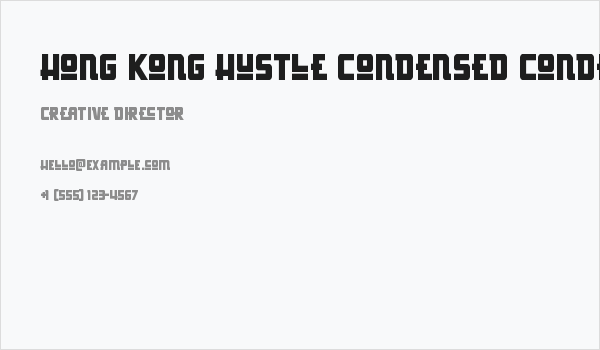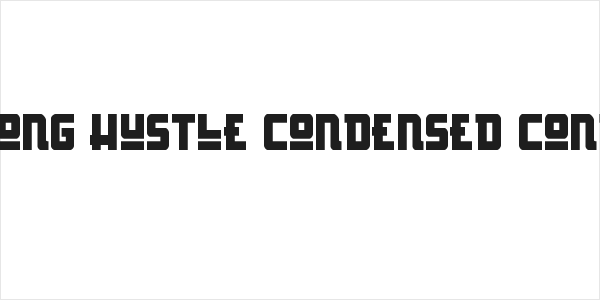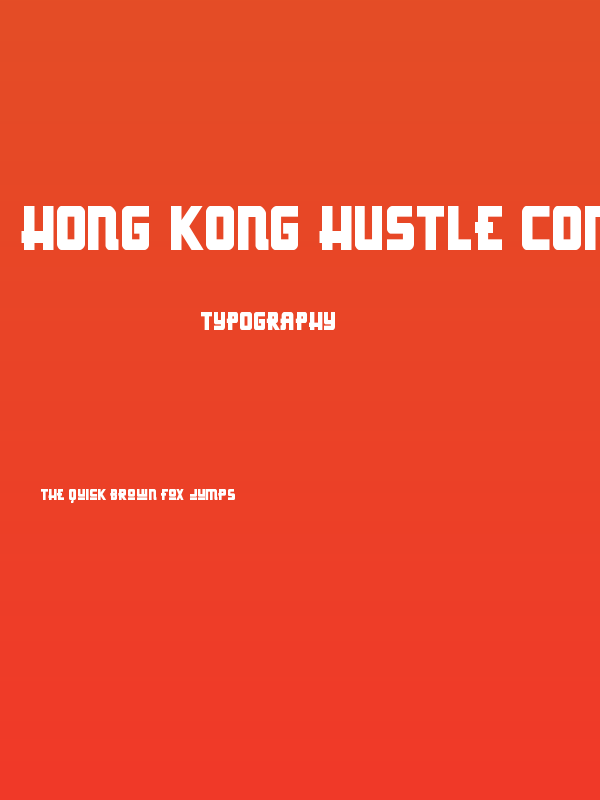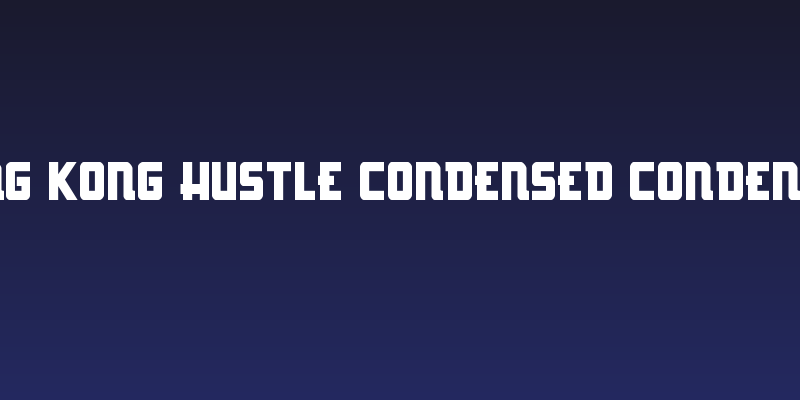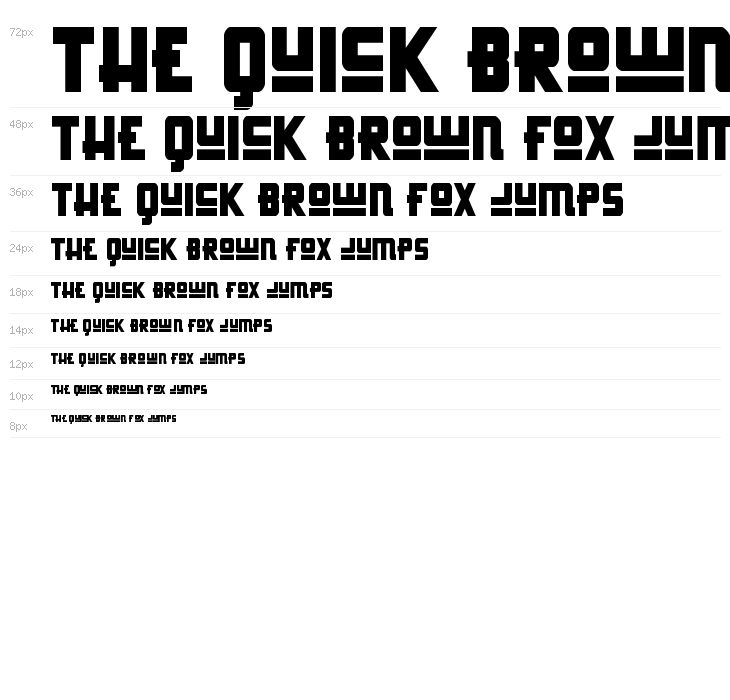
Hong Kong Hustle Condensed Font
Hong Kong Hustle Condensed Description
This font features a bold, geometric style with a condensed structure, characterized by thick, block-like letters that convey a sense of strength and modernity. The uppercase and lowercase letters maintain a consistent width, enhancing the condensed appearance. The numerals and special characters follow the same design principles, ensuring uniformity across all glyphs. The font's sharp angles and straight lines give it a futuristic and industrial feel, making it suitable for impactful and attention-grabbing designs.
| Proposed Projects | Ideal for branding, posters, headlines, and any design requiring a strong, modern aesthetic. |